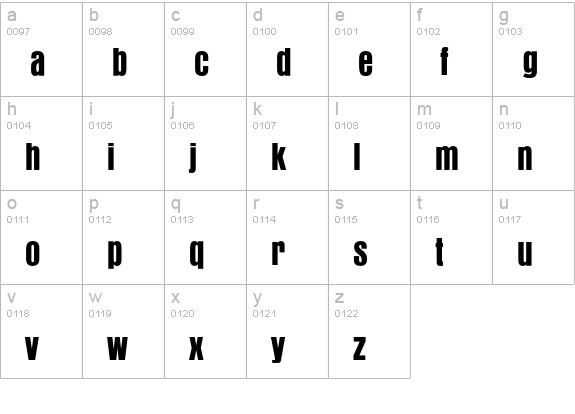
Anzeigen Grotesk D is a modern and versatile typeface that effortlessly blends elegance with functionality. With its clean lines and sharp edges, this font exudes a sense of professionalism and sophistication. Whether used for headlines, body text, or branding materials, Anzeigen Grotesk D commands attention and delivers a polished aesthetic. What sets Anzeigen Grotesk D apart is not only its visual appeal but also its accessibility. This font is available for free download at FontsMarket.com, making it a valuable asset for designers, creatives, and anyone looking to elevate their projects with a touch of refined style. Embrace the sleek simplicity and timeless charm of Anzeigen Grotesk D to make a lasting impression with your designs.